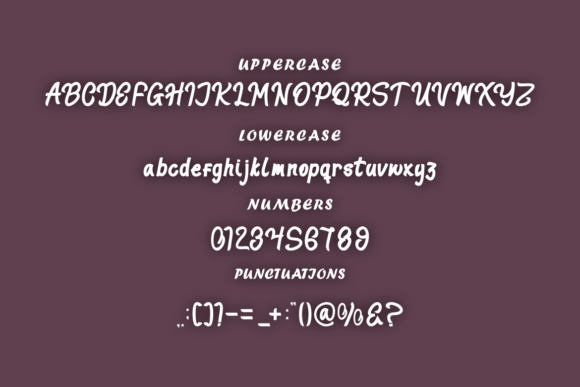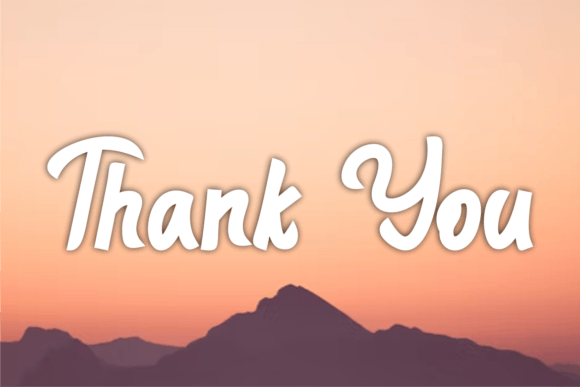
The Ultimate Guide to Clabrush Font: Elevate Your Designs with a Modern Handwritten Script
Clabrush is a casual and modern handwritten script font that has quickly become a staple in my design toolkit. Its unique blend of elegance and playfulness makes it perfect for a wide range of projects, from wedding invitations and branding materials to craft tutorials and social media graphics.
An Honest Review of Clabrush
What I Love About Clabrush ✨
- 💫 Unique and Memorable: Clabrush has a distinct personality that sets it apart from more traditional script fonts. Its modern take on handwritten script makes it perfect for designers looking to add a personal touch to their work.
- ✅ Ease of Use: This font is incredibly easy to read and works well in both digital and print formats. Whether you’re designing a social media graphic or a brochure, Clabrush is a versatile choice.
- 🎨 Highly Versatile: From elegant wedding invitations to playful craft tutorials, Clabrush adapts seamlessly to different design styles and themes.
- 🔍 Extensive Glyphs and OpenType Features: Clabrush comes with a wide range of glyphs, stylistic alternates, and OpenType features, giving you plenty of creative options.
While Clabrush is an excellent font, it’s not without its quirks. For instance:
- ⚠️ Legibility at Small Sizes: Like many script fonts, Clabrush can be a bit tricky to read at very small sizes. It’s best used at larger sizes where its details can shine.
- ⚠️ Overuse of Swashes: While the swashes and stylistic alternates in Clabrush are beautiful, using too many can make your text look cluttered. Moderation is key.
The Story Behind Clabrush
Clabrush was designed with the modern creative in mind. Its creator aimed to craft a font that was both elegant and approachable, perfect for a wide range of design projects. Inspired by the fluidity of handwritten scripts and the clarity of modern typography, Clabrush brings a fresh perspective to the world of script fonts.
Q: Is Clabrush suitable for body text?
A: While Clabrush is beautiful and highly legible, it’s best used for headings and short paragraphs. For longer body text, a more traditional serif or sans-serif font might be more suitable.
Q: Does Clabrush support multiple languages?
A: Clabrush supports a range of languages, but its coverage might be limited compared to more extensive font libraries. Check the font’s documentation for specific language support.